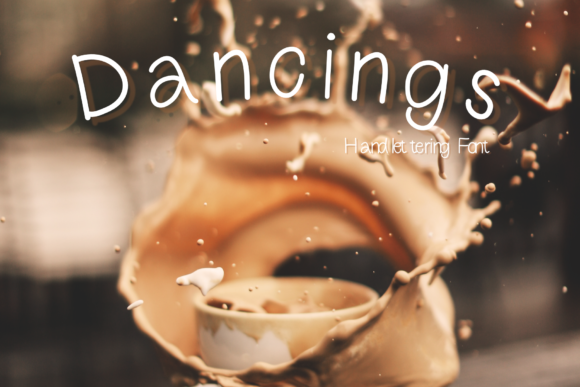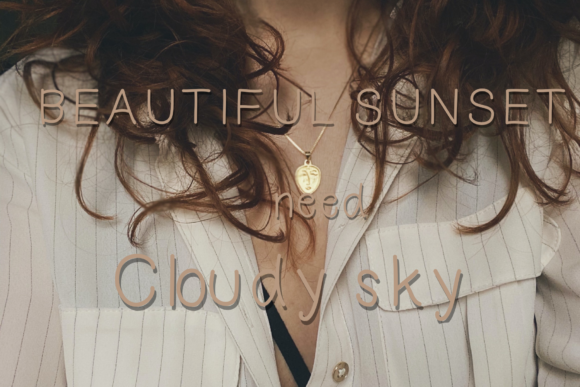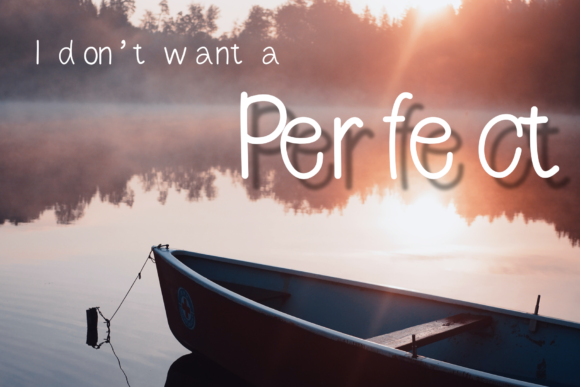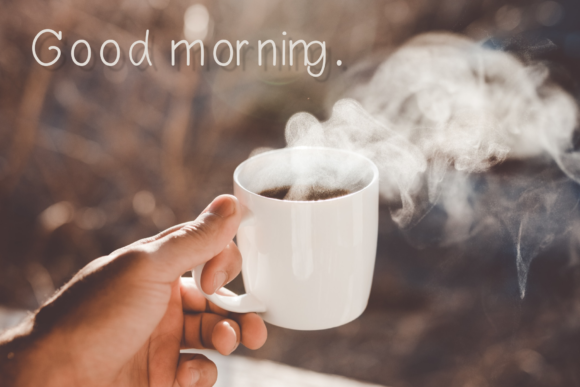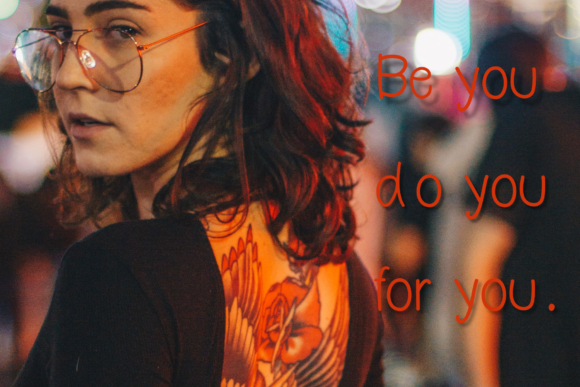
Dancings Font
About Dancings Font
Dancings is a sweet and friendly handwritten font. Its natural and unique style makes it incredibly fitting to a large pool of designs. The only limit is your imagination!